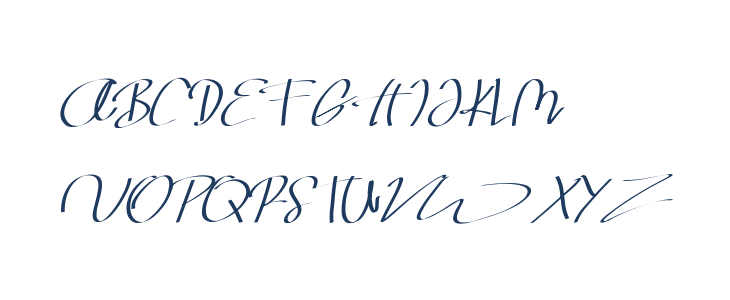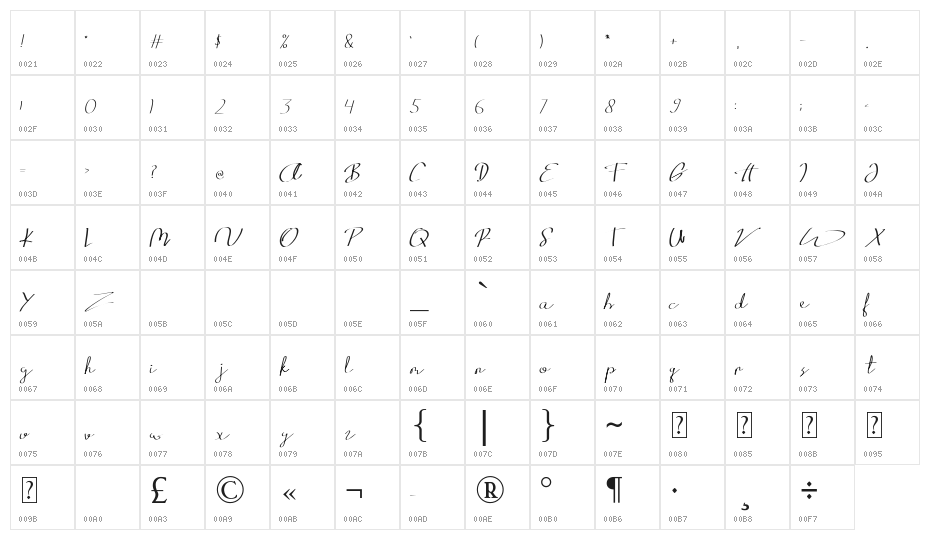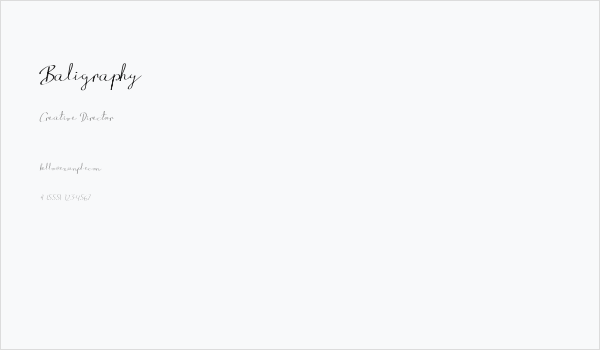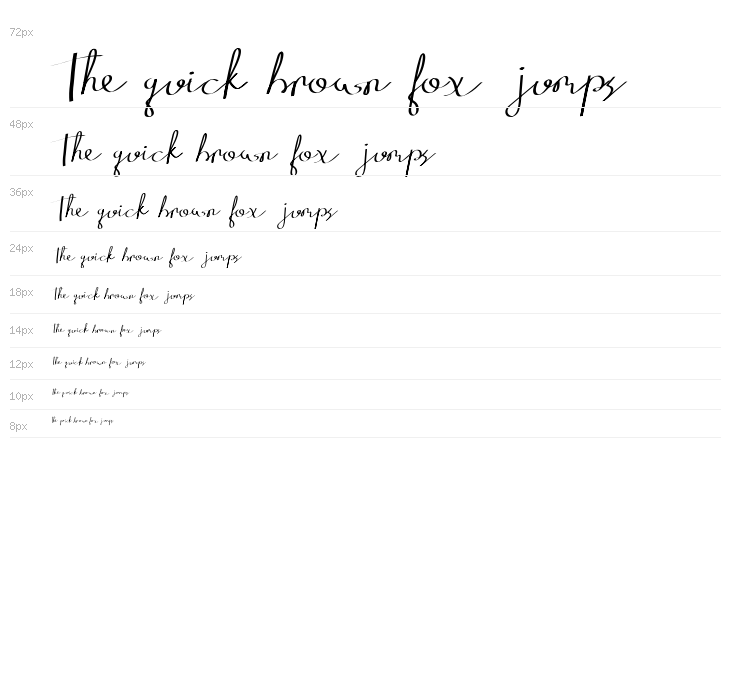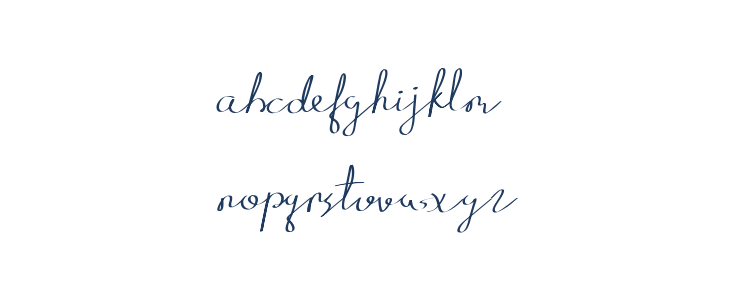
Baligraphy Font
Baligraphy Description
Elegant, flowing script font with high contrast strokes and a handwritten, calligraphic style. The characters feature long, sweeping ascenders and descenders, and the overall appearance is refined and artistic.
| Overall Style | Decorative, Elegant, Handwritten |
| Use Case | Logos, Invitations, Decorative headlines |
| Proposed Projects | Wedding invitations, branding, greeting cards, elegant packaging, personal signatures. |